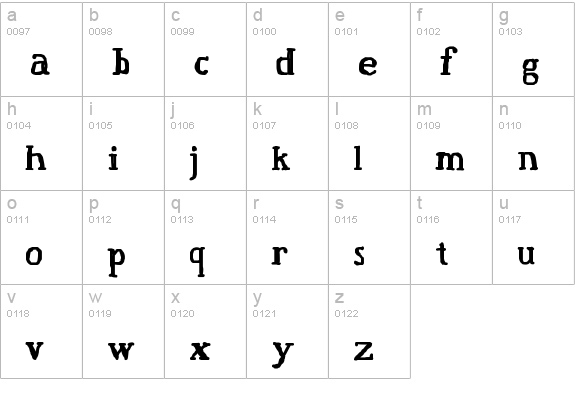
Fat Finger Font Details
Introducing Fat Finger font, a quirky and playful typeface perfect for adding a touch of fun to your designs. With its bold and rounded letters, this font is sure to make a statement and grab attention. Whether you're creating posters, logos, or social media graphics, Fat Finger font will bring a unique charm to your projects. Best of all, Fat Finger font is completely free to download at FontsMarket.com. So go ahead and unleash your creativity with this delightful typeface. Add a dose of personality to your designs with Fat Finger font today!